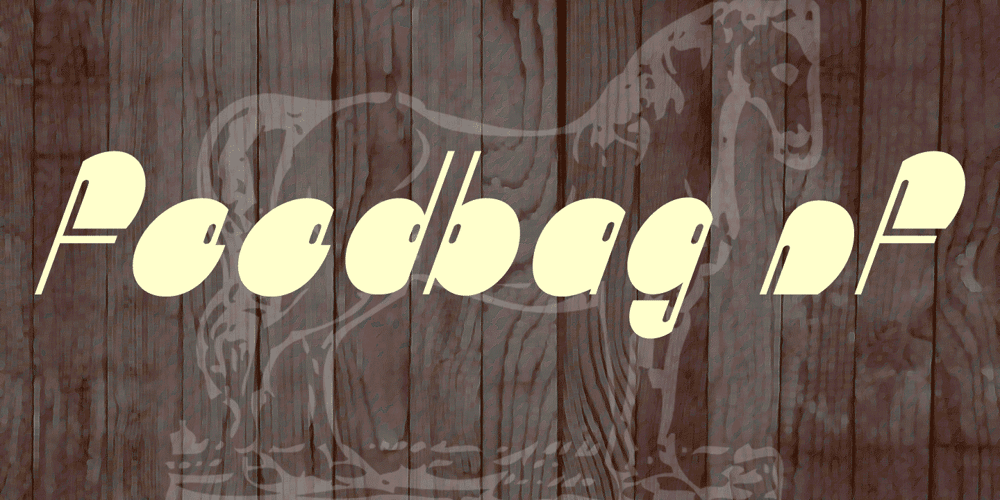
Feedbag NF
Feedbag NF font
Feedbag NF Font Family was designed by Nick Curtis and published by Nick’s Fonts. Feedbag NF contains 1 styles and family package options. Horse Tank, an admittedly wacky offering from Fotostar, provided the pattern for this friendly little face, full of retro charm. Both flavors of this font feature the 1252 Latin, 1250 Central European, 1254 Turkish and 1257 Baltic character sets.